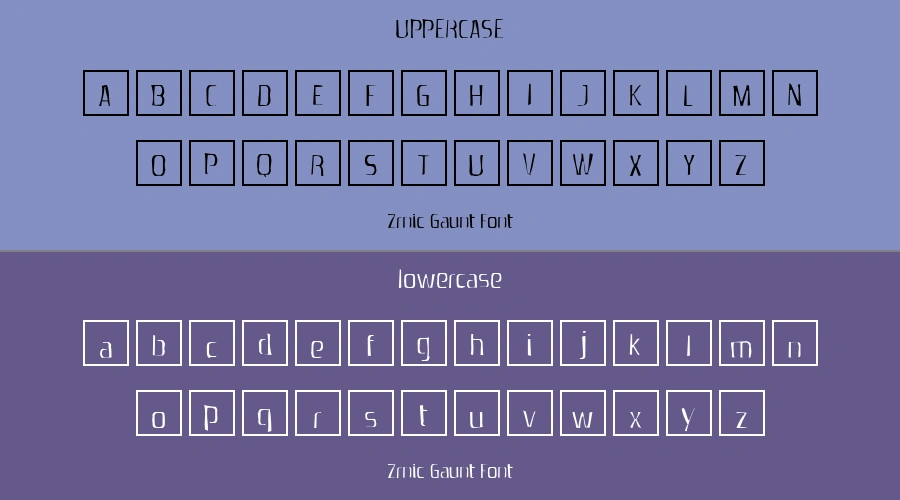
About Zrnic Gaunt Font
Zrnic Gaunt Font embodies typographic excellence through its masterful combination of high x-height and operational efficiency. Created for medical texts, this typeface delivers exceptional professionalism and brand power across all applications. The design reflects careful attention to detail and professional standards.
Advanced capabilities include distinctive bold expressions and versatile discretionary ligatures, giving designers creative control. When used in warning labels, Zrnic Gaunt Font exhibits remarkable detail preservation. The harmonious balance between letterfit and technical tradition sets this typeface apart.